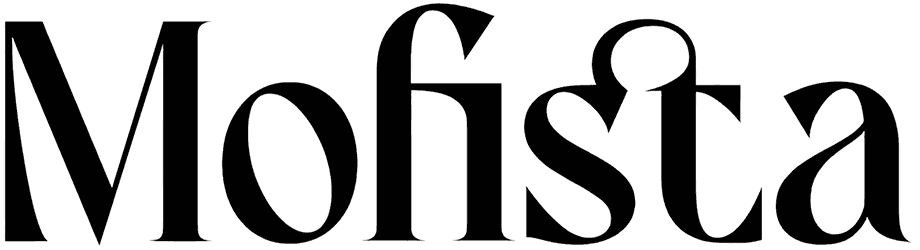
Mofista Font
With a nostalgic face such as Mofista, your future design will be so attractive. This artistic font has classic letters with a new style in two versions and is a matchable form with any theme. Mofista could perfectly display creative projects from formal designs, namely presentations, to informal ones like social media posts, and show them with an original mood.